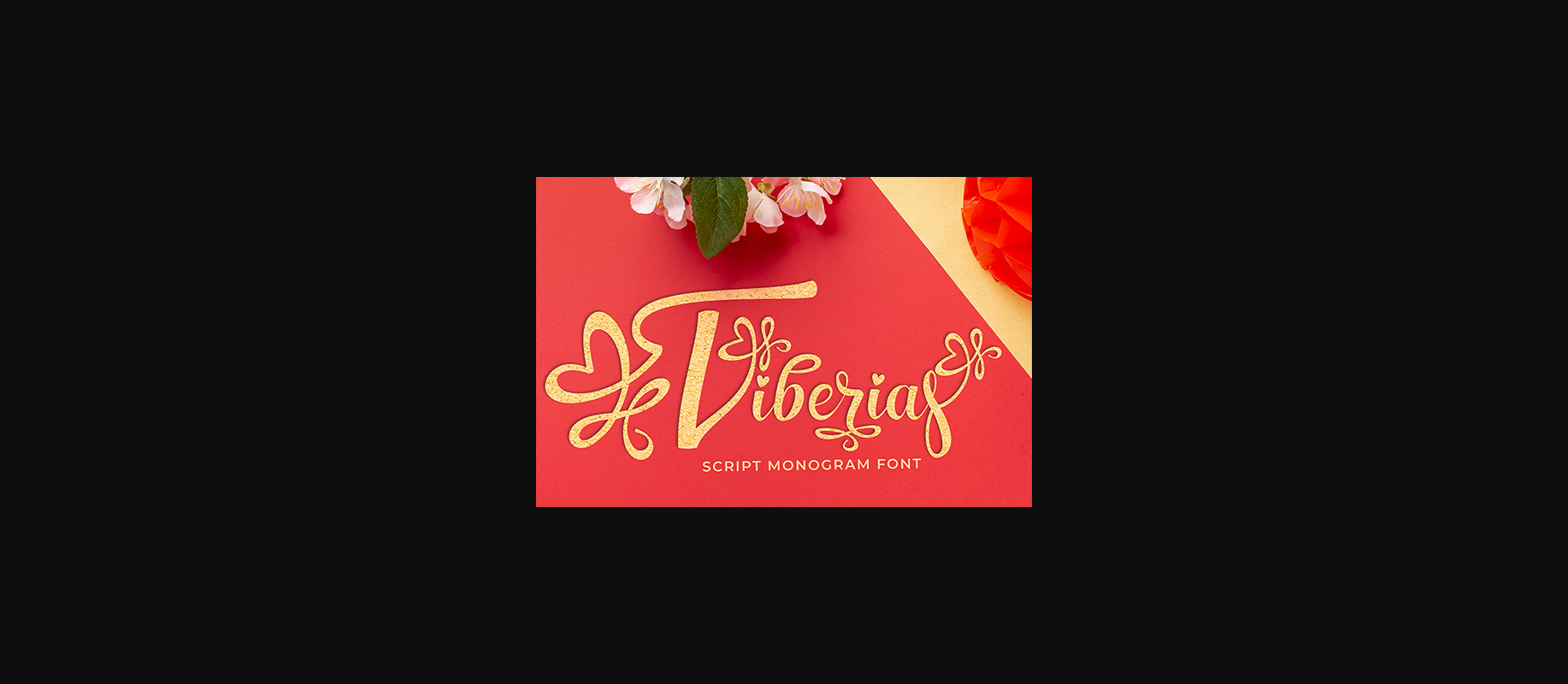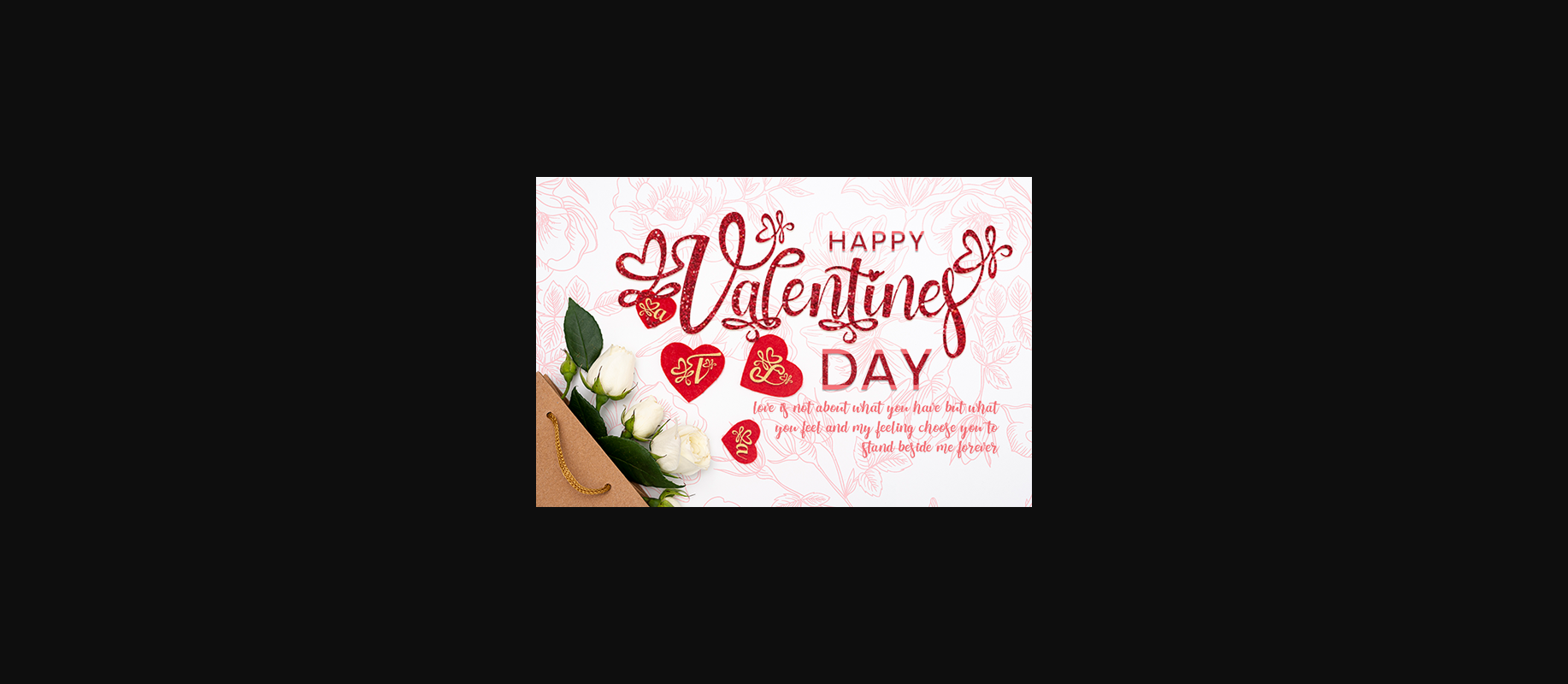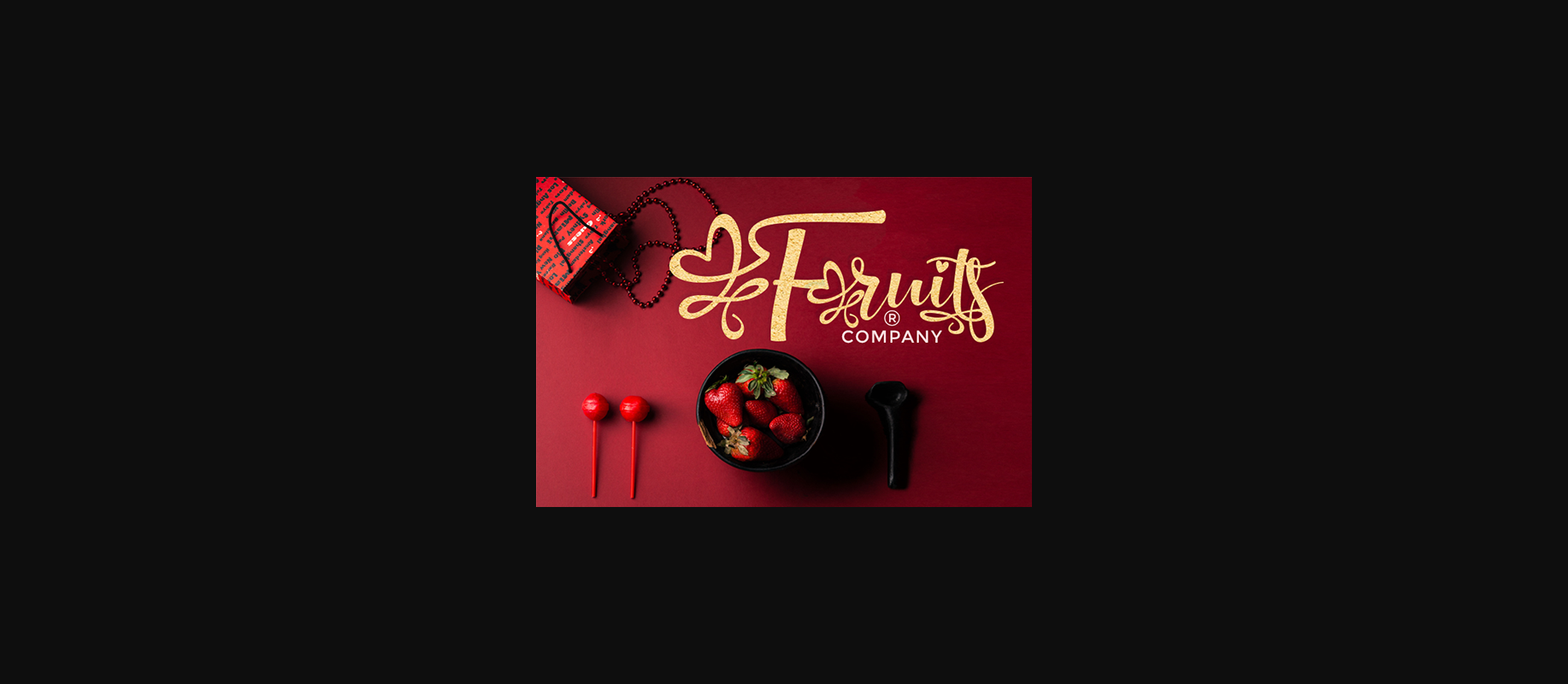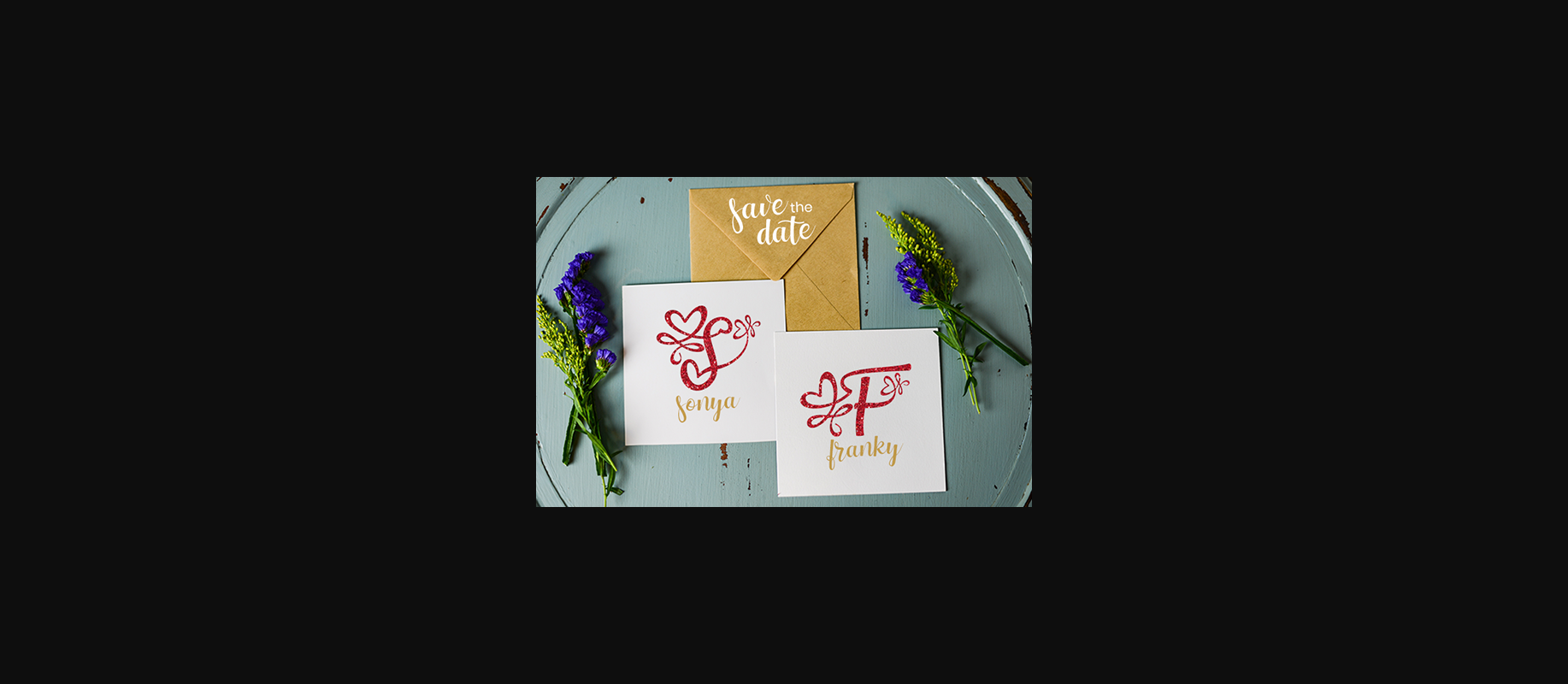
About Tiberias Font
Tiberias features an irregular baseline, mixed with a trendy and delicate style. It will take any design idea to the next level, be it wedding invitations, thank you cards, quotes, greeting cards, logos, business cards and much more!.